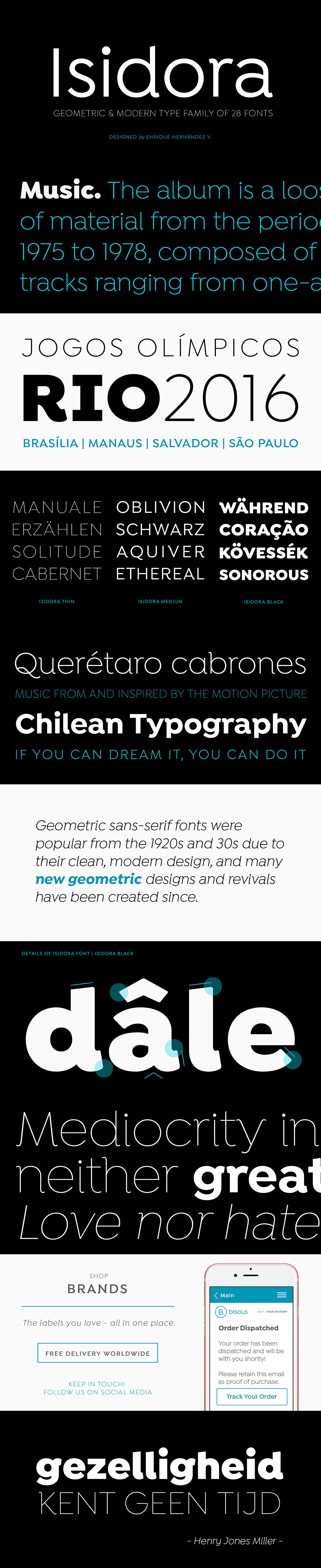
Friends, I am thrilled to bring this huge bundle of 20 hard hitting fonts in the world brought to  you by DesignCuts. These best selling fonts are perfect for everything from large-scale branding projects to everyday design work. In this collection, you will find ultimate quality and variety of fonts from the celebrated type foundries such as Latinotype, Laura Worthington, Fenotype, and Black Foundry to give you absolute power to grab attention and uplift your design work.
Definitive Fonts Bundle
Assemblage
Designed by Daniel Hernández, Alfonso García, Bruno Jara Ahumada and Luciano Vergara. Thanks to Pedro González for his contribution in the initial stage of the design process.
Assemblage is a typeface-inspired by Roman square capitals-that comes in 6 different weights and ranging from Thin to Black. The background of the typeface makes it well-suited for branding, short text, titles and complex compositions, thanks to its italic version.
Gabriel Stencil
Gabriela Stencil is a classic font family with a unique character designed by Antonio Mejía Lechuga in collaboration with Latinotype Team. This font, well-suited for headlines, has features that emphasize its modern and elegant personality, inspired by the style of the 19th-century Didone typefaces.
Basic Sans Narrow
Basic Sans Narrow is a narrower version of Basic Sans. It is a family of Grotesque features with a functional, neutral and seeming clean style that looks to keep a neutral (or basic) appearance on paper, but including lots of details that give it a unique personality.
Isidora
Designed by Enrique Hernández V, Isidora is a modern geometric font based on the classic typefaces of the early 20th Century yet with a contemporary and functional touch. In spite of its strong and rational structure, the font also looks friendly and expressive, thanks to its rounded terminals. In addition, its diagonal terminal cuts give it a softer and more rounded appearance.
Spumante
A slim, semi-connected script with lithely upright curves, Spumante conveys the casual effervescence of its namesake wine. Smoothed brush-script letterforms bounce gently along the baseline, and letters vary slightly in their slant— characteristics that combine to create a very human and inviting mood.
Alana
A connected script face that glows with casual elegance. Based on a personal handwriting style (rather than showy calligraphy), Alana’s inviting letterforms work convincingly in settings such as letter-writing and menu details, even at small sizes.
Eds Market
It’s like hiring your own professional sign painter with a solid repertoire of styles. Each one is distinctive, yet clearly by the same hand – in this case, Laura Worthington’s, holding a pointed brush. No variants were created on the computer; each weight and version was individually hand-lettered.
Congenial
Wanting to design her own sans-serif typeface for her own website to complement the rest of her type library, Laura Worthington designed Congenial as an understated, highly legible complement to her more decorative display faces. Of course, Laura is never far from her calligraphic roots, so Congenial retains some hand-drawn elements, visible particularly in the heavier weights of this generous 11-face family: for example, the swelling diagonal stroke of the capital X, and the flared terminals of the K, L, Q, and Z. At lighter weights the strokes become almost monoline, but the humanist tendency is still evident — see the graceful, decidedly non-geometric curves of the k, e, and g.
Malva Basic
Malva was designed to perform as a branding element, providing a clean look for visual identities and publications. It brings a touch of friendliness to the communication without compromising the professional look every brand strives for.
Quasimoda
Quasimoda is the “almost fashionable” sans serif family with 11 weights and matching italics. It combines fashionable geometric forms with old-fashioned classical proportions. Berlin-based Botio Nikoltchev (Lettersoup) designed Quasimoda so that the lighter weights give off a fresh, modern feel, the middle weights provide excellent readability and elegance for longer texts, while the boldest weights introduce a slightly antiquated flair.
Pseudonym
Pseudonym is a low-contrast, subtly-flared serif available in four weights across three styles in both roman and italic.
Cosmopolitan
Cosmopolitan is a monoline font family with script and sans versions that both work great together or alone. It comes with five weights and “printed” versions. For extra swashes, swirls and pictograms there is Cosmopolitan Extras.